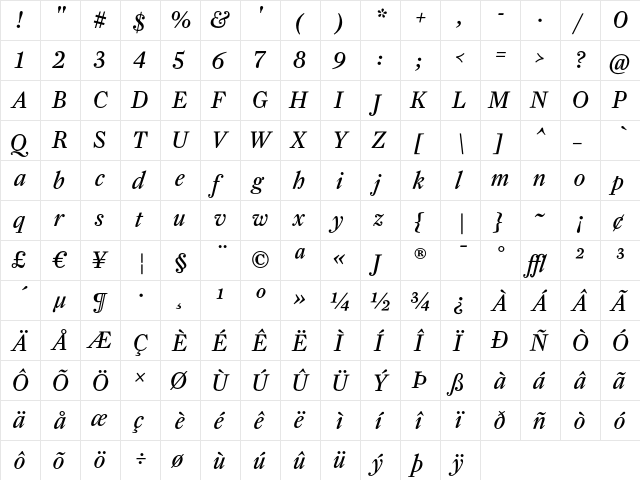
FarnhamText-RegularItalLF Regular Font Preview
FarnhamText-RegularItalLF Regular
FarnhamText-RegularItalLF Regular Font Details
Design Context for FarnhamText-RegularItalLF Typeface
FarnhamText-RegularItalLF is a composed and adaptable typeface that performs quietly and consistently across a wide range of design contexts.